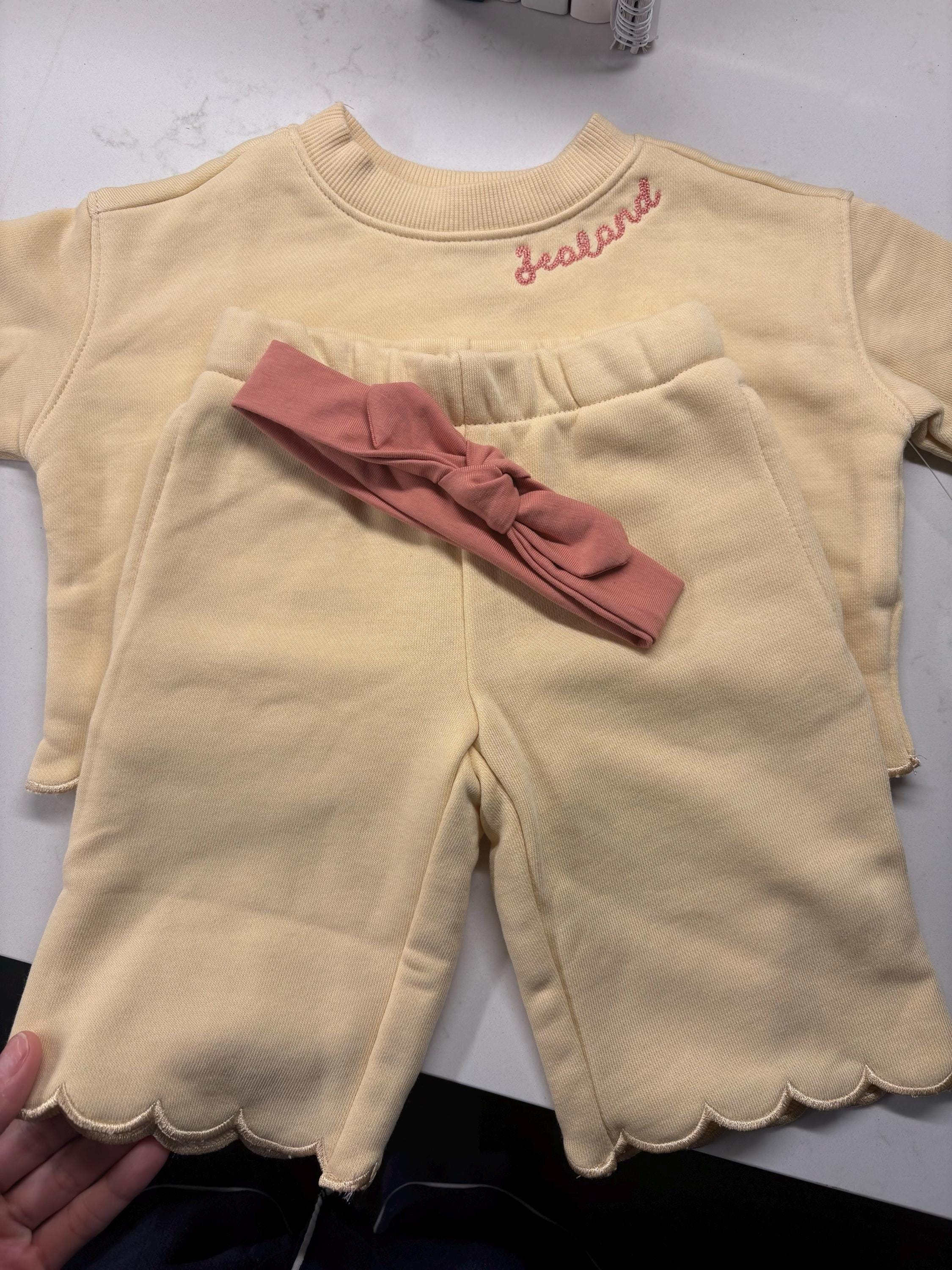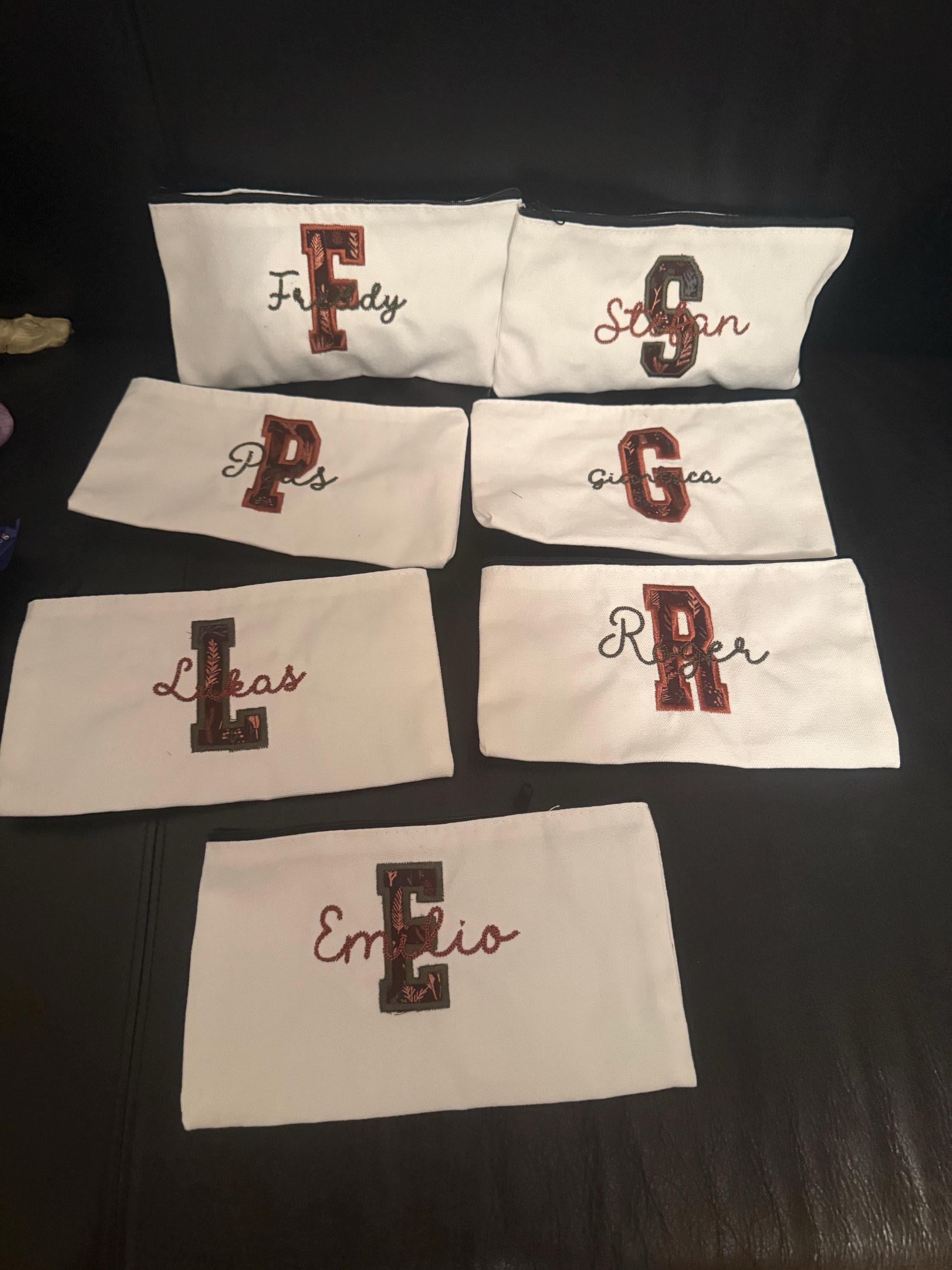
Tiny Chain Font in Mini Sizes 0.6 up to 2
Delicate mini script for tiny, charming monograms.
Tiny Chain Font is a delicate mini alphabet in a chain stitch style crafted for tiny monograms and neckline lettering. This mini chain font includes uppercase, lowercase, numbers and punctuation in sizes 0.6", 0.8", 1", 1.3", 1.6" and 2". Ideal for tiny chain embroidery, the chain stitch alphabet and mini chain font lovers, it provides a handwritten script look for baby embroidery and neckline font work. The single-color design (1 color, 2120 stitches) is delivered in PES, DST, EXP, VIP, HUS, XXX, JEF and VP3 formats and fits a 4x4 hoop for easy stitching.
The chain stitch alphabet is digitized for tiny sizes from 0.6" to 2"; the design runs as a single-color chain stitch and totals 2120 stitches for clean, delicate results.